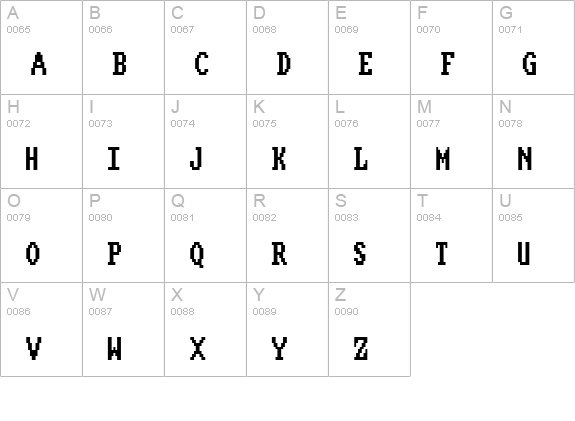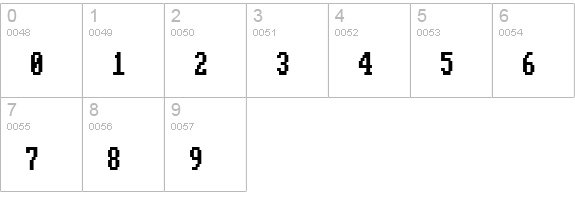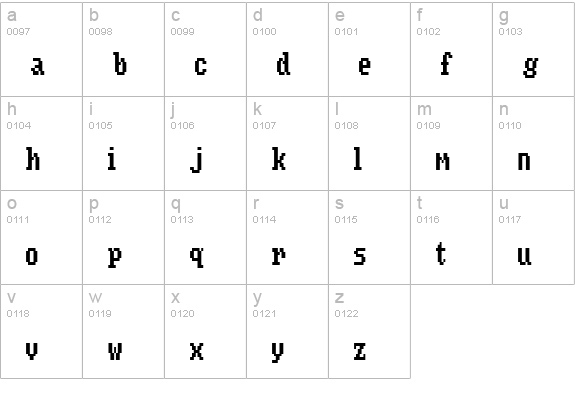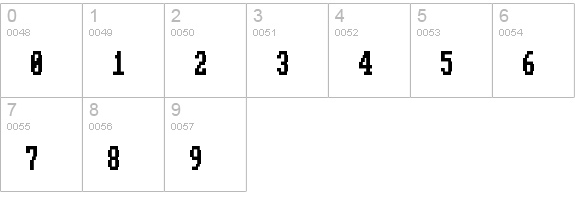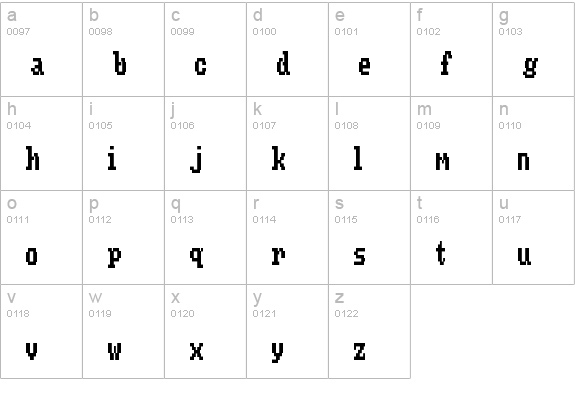
November Font Details
Introducing the exquisite November font, a versatile typeface that effortlessly combines elegance and modernity. With its sleek lines and sophisticated curves, November is perfect for adding a touch of refinement to any design project. This stunning font is meticulously crafted to provide a seamless reading experience, making it ideal for a wide range of applications, from branding to editorial design. The November font is not only visually stunning but also incredibly versatile, making it a must-have for any designer looking to make a statement. Whether you're working on a website, poster, or logo, November is sure to elevate your project to the next level. Best of all, the November font is available for free download at FontsMarket.com. Don't miss out on this incredible opportunity to add a touch of sophistication to your designs with this exquisite font. Download November today and unlock a world of creative possibilities!